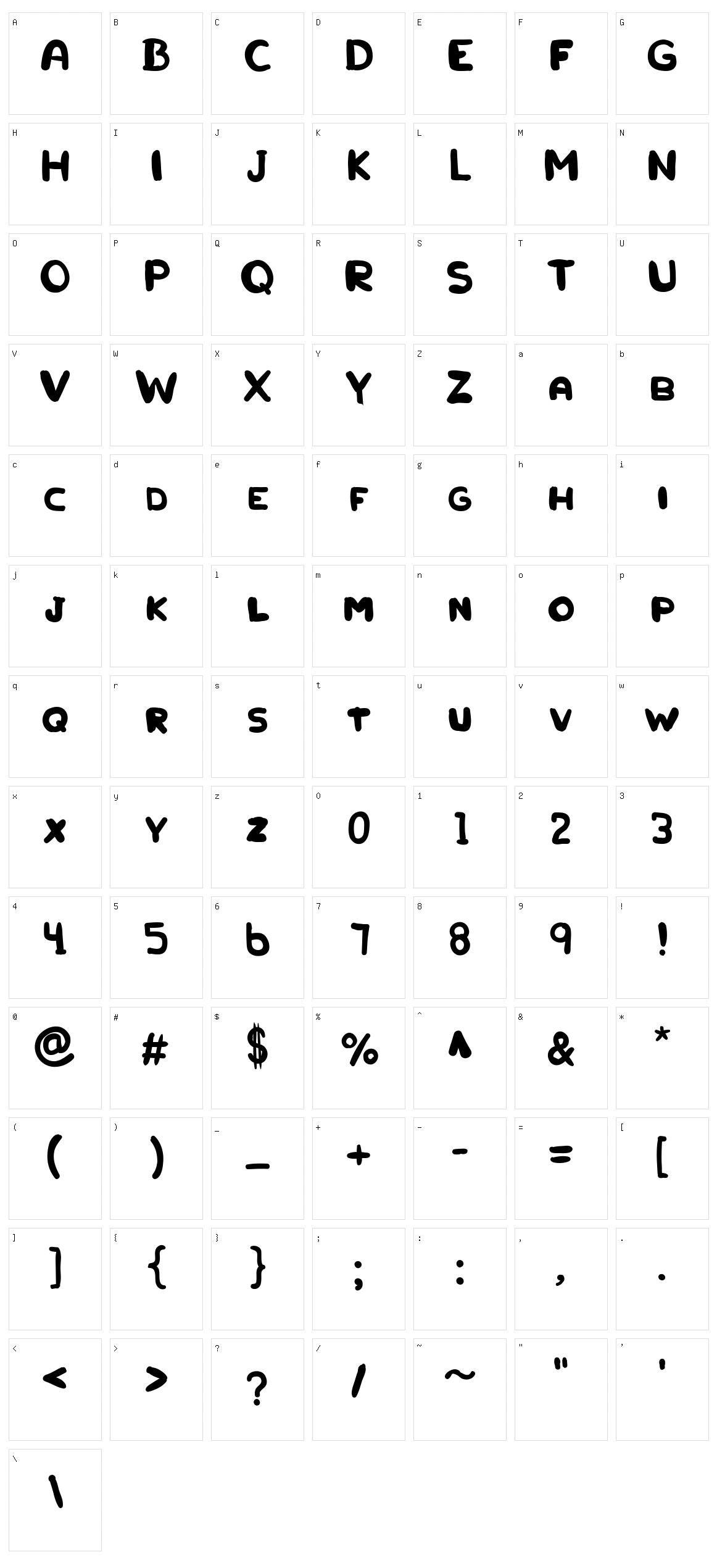
The free font Kartoon Movie is carefully designed by ManekaDesign, showcasing a thoughtful balance of creativity and usability and falls under the Cartoon font style. When you download the ZIP file, it contains only 32.01 KB of font files, making it lightweight and quick to download. Please review the license details below to understand permitted usage and distribution rights. If license information is not available, we recommend using this font for personal projects only or contacting the author directly for commercial usage permissions.